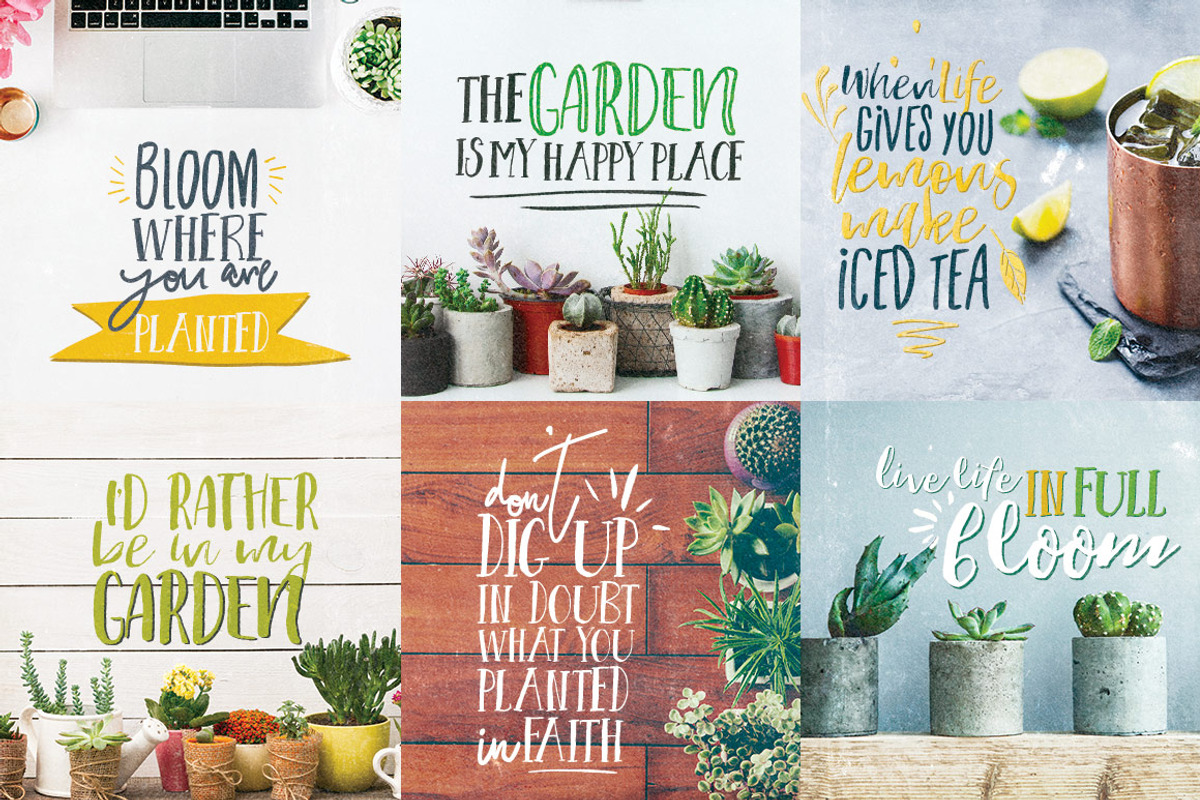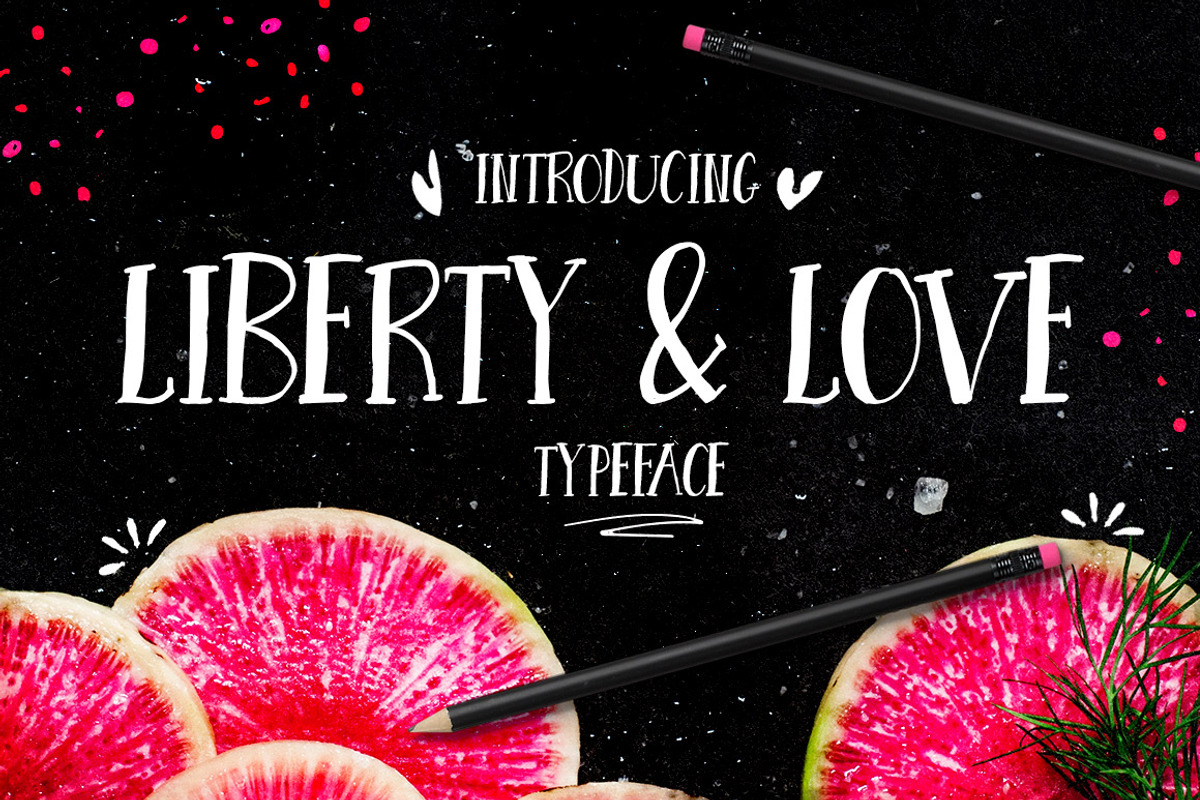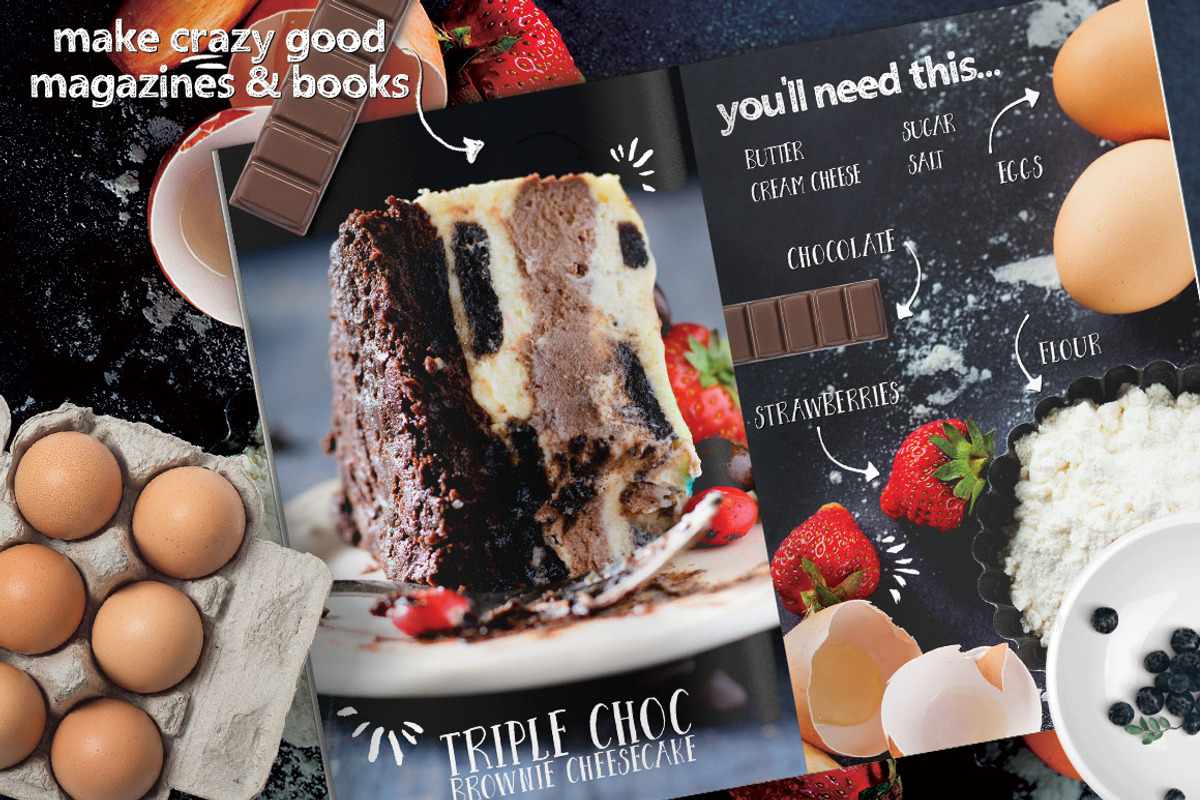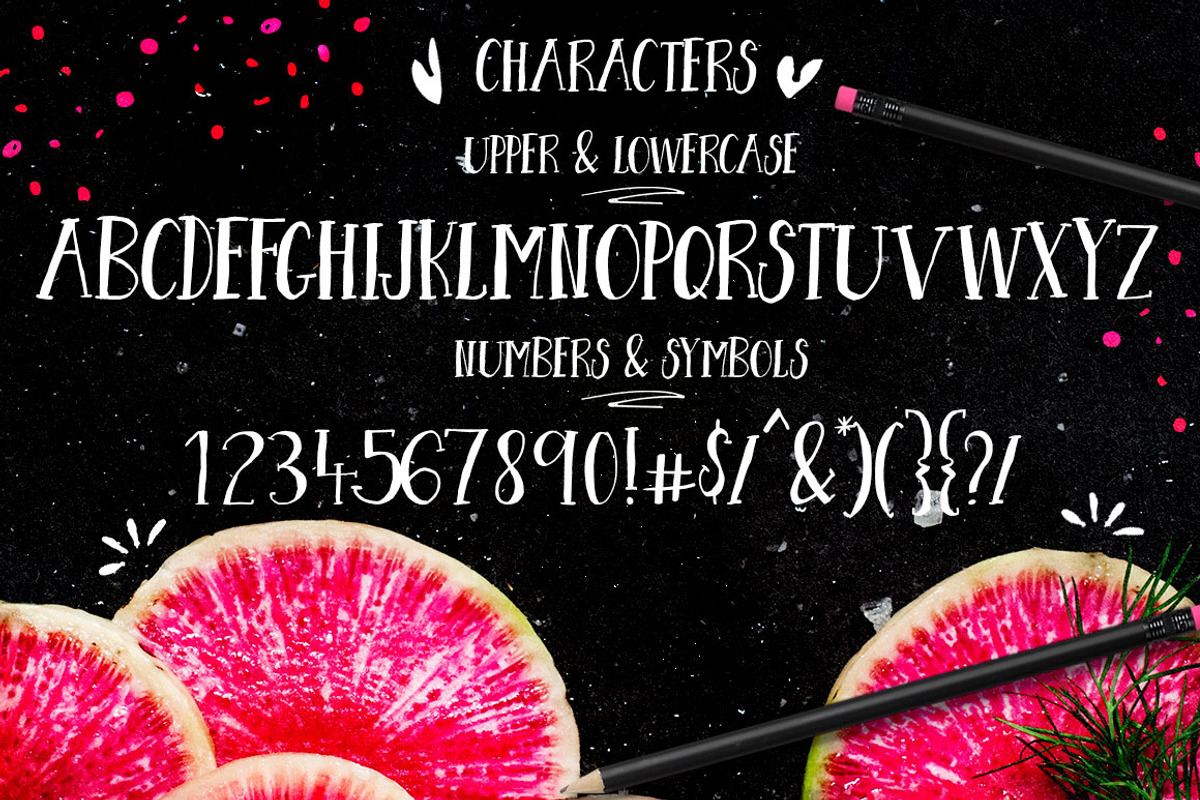
Liberty & Love Font Typeface
Liberty & Love Font Typeface by Creativeqube Design is a font selected for branding, posters, packaging, typography.
Why Liberty & Love Font Typeface is worth a look
Liberty & Love Font Typeface by Creativeqube Design fits naturally into Branding, posters, packaging, typography.